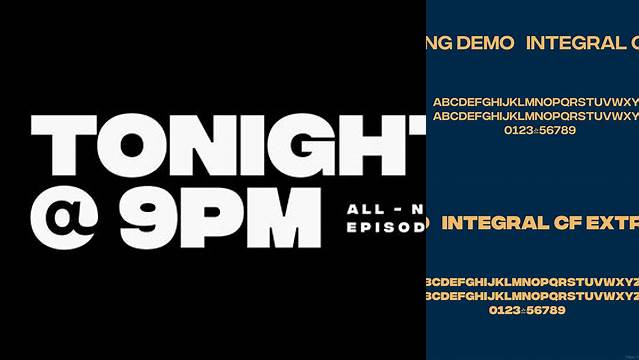
Integral CF Bold OTF Font: Fontspring Demo & Uses
Introduction to Integral CF Bold OTF
When it comes to typography, the Integral CF Bold OTF font stands out as a versatile and impactful choice for designers and creatives. This font, available for demo on Fontspring, offers a unique blend of modernity and classic appeal, making it suitable for a wide range of applications. Whether you're working on branding, web design, or print materials, understanding the characteristics and capabilities of Integral CF Bold OTF is crucial. Integral CF Bold OTF is not just another typeface; it's a carefully crafted tool that can significantly enhance the visual impact of your projects. So, guys, let's dive in and explore what makes this font so special and why you should consider using it in your next design endeavor. The bold variant, in particular, adds a certain robustness and presence that can capture attention and convey your message effectively. From its clean lines to its well-balanced letterforms, Integral CF Bold OTF exudes professionalism and sophistication. This makes it an excellent option for headings, titles, and any situation where you need to make a strong statement. Plus, the OTF (OpenType Font) format ensures compatibility across various platforms and software, giving you the flexibility you need in your workflow. One of the key strengths of Integral CF Bold OTF lies in its legibility. Despite its bold weight, the font maintains clarity and readability, even at smaller sizes. This is essential for ensuring that your message is easily understood by your audience. Think about it – a beautifully designed font is useless if no one can read it! So, when you're choosing a typeface for your project, remember that legibility should always be a top priority. And with Integral CF Bold OTF, you can rest assured that your text will be both visually appealing and easily readable. But it's not just about legibility; it's also about personality. Integral CF Bold OTF has a distinct character that sets it apart from other fonts in its class. Its slightly rounded edges and subtle details give it a friendly and approachable feel, while its bold weight adds a touch of authority. This combination of traits makes it a versatile choice for a wide range of projects, from corporate branding to creative advertising. Imagine using Integral CF Bold OTF for a website header, a poster headline, or even a logo – the possibilities are endless! It’s this versatility that makes it a valuable asset in any designer’s toolkit.
Key Features of Integral CF Bold OTF
Delving deeper into the key features of Integral CF Bold OTF, you'll discover why this font is a favorite among designers. First off, the bold weight itself is a standout. It provides a strong visual presence, making text pop and grab the viewer's attention. This is particularly useful for headlines, call-to-actions, and any element that needs to stand out. But it’s not just about being bold; it’s about being elegantly bold. The Integral CF Bold OTF strikes a perfect balance, ensuring that the boldness doesn’t compromise readability or aesthetic appeal. It’s this attention to detail that sets it apart. The OpenType (OTF) format is another crucial feature. OTF fonts offer enhanced typographic capabilities compared to older formats like TrueType. This includes things like ligatures, alternate characters, and different numeral styles. For Integral CF Bold OTF, this means you have access to a wider range of glyphs and stylistic options, allowing for greater creative expression. You can fine-tune the appearance of your text to achieve the exact look and feel you desire. Think of it as having a palette of typographic tools at your fingertips. Integral CF Bold OTF also boasts excellent legibility. As we mentioned earlier, this is paramount for any font, especially one intended for widespread use. The letterforms are designed with clarity in mind, ensuring that text remains readable even at smaller sizes or from a distance. This makes it a great choice for both print and digital applications. Whether you're designing a business card or a website, you can be confident that your text will be easily readable. Another noteworthy feature is the font's versatility. Integral CF Bold OTF is not limited to a specific type of project or industry. Its clean and modern design makes it suitable for a variety of applications, from corporate branding and advertising to editorial design and web interfaces. This adaptability is a huge advantage, as it means you can use the font across different projects without feeling like it’s out of place. It’s like having a Swiss Army knife for typography – always reliable and ready for anything. Furthermore, Integral CF Bold OTF includes a comprehensive character set. This means it supports a wide range of languages and includes various symbols and punctuation marks. This is particularly important for projects that require multilingual support or have specific typographic needs. You won’t have to worry about missing characters or compatibility issues – Integral CF Bold OTF has you covered. And let's not forget the aesthetic qualities. The font's clean lines, balanced proportions, and subtle curves give it a contemporary yet timeless feel. It’s a font that looks both modern and professional, making it a great choice for projects that need to convey trustworthiness and expertise. The designers behind Integral CF Bold OTF have clearly put a lot of thought into its visual appeal, and it shows.
How to Use Integral CF Bold OTF in Your Designs
Now, let’s talk about how to use Integral CF Bold OTF effectively in your designs. This is where the rubber meets the road, guys! Knowing the features of a font is one thing, but knowing how to apply it in real-world scenarios is where the magic happens. First and foremost, consider the context of your project. Integral CF Bold OTF shines in situations where you need to make a strong visual statement. This makes it ideal for headlines, titles, and branding materials. Think about using it for your website headers, posters, or even your logo. The bold weight commands attention, ensuring that your message gets noticed. However, it's important to use it judiciously. Overusing a bold font can lead to visual fatigue and make your design feel cluttered. A good rule of thumb is to use it sparingly for emphasis, rather than for large blocks of text. Reserve it for key elements that you want to highlight. Another great way to use Integral CF Bold OTF is in combination with its lighter counterparts. Many font families include multiple weights, allowing you to create a hierarchy and visual contrast in your design. Pair the Bold version with the Regular or Light versions for body text to create a balanced and harmonious layout. This technique helps guide the reader's eye and makes your content more engaging. When it comes to color, Integral CF Bold OTF works well in a variety of palettes. Its clean lines and strong presence make it suitable for both light and dark backgrounds. However, keep in mind that bold fonts generally work best with high contrast. For example, using white text on a dark background or vice versa can create a striking visual impact. Experiment with different color combinations to find what works best for your project. In terms of size, Integral CF Bold OTF is highly scalable. It looks great at large sizes for headlines and posters, but it also maintains legibility at smaller sizes for body text and captions. This versatility makes it a practical choice for a wide range of applications. Just be sure to test the font at different sizes to ensure it remains readable in your specific context. Consider the overall tone and style of your design. Integral CF Bold OTF has a modern and professional feel, so it’s well-suited for projects that require a clean and contemporary aesthetic. It may not be the best choice for designs that need to evoke a more traditional or whimsical mood. Choose fonts that align with the overall message and brand identity you're trying to convey. Don't be afraid to experiment with different typographic techniques. Try adjusting the letter spacing (tracking) or line height (leading) to fine-tune the appearance of your text. These subtle adjustments can make a big difference in the overall look and feel of your design. You might even consider using Integral CF Bold OTF in conjunction with other fonts. While it’s important to maintain consistency, pairing different typefaces can add visual interest and personality to your design. Just be sure to choose fonts that complement each other and don’t clash. Ultimately, the key to using Integral CF Bold OTF effectively is to understand its strengths and limitations. Use it strategically to create visual impact, maintain legibility, and reinforce your message. With a little practice, you’ll be able to harness the power of this font and elevate your designs to the next level.
Alternatives to Integral CF Bold OTF
Okay, so while Integral CF Bold OTF is a fantastic font, it's always a good idea to explore alternatives. Maybe it doesn't quite fit the specific vibe you're going for, or perhaps you're just curious about other options out there. Whatever the reason, knowing some solid alternatives can broaden your typographic horizons and help you make the best choice for your project. One popular alternative to Integral CF Bold OTF is Montserrat. This sans-serif typeface has a clean, modern aesthetic that's similar to Integral CF, but with its own distinct personality. Montserrat is highly versatile and works well for a variety of applications, from web design to print materials. It's also available in multiple weights, giving you flexibility in your design. Another excellent option is Open Sans. This humanist sans-serif font is known for its readability and clean lines. It's a great choice for body text, but it also works well for headings and titles. Open Sans is a favorite among designers for its versatility and legibility, making it a reliable alternative to Integral CF Bold OTF. If you're looking for something with a bit more character, consider Roboto. This sans-serif typeface has a dual nature, combining geometric forms with friendly curves. Roboto is highly legible and works well in a variety of contexts. It's a popular choice for Android interfaces and Google products, so you've probably seen it in action already. For a slightly bolder and more impactful alternative, check out Lato. This sans-serif font has semi-rounded details that give it a warm and friendly feel, while its strong structure provides stability and seriousness. Lato is a versatile typeface that works well for both headings and body text, making it a strong contender as an alternative to Integral CF Bold OTF. Another noteworthy alternative is Nunito. This well-balanced sans-serif font has rounded terminals that give it a soft and approachable feel. Nunito is highly legible and works well for a variety of applications, particularly in web design. Its rounded shapes make it a friendly and inviting choice for user interfaces and branding materials. If you're after a more geometric sans-serif, consider Futura. This classic typeface has a clean and modern aesthetic that's timeless and versatile. Futura is known for its geometric shapes and strong visual presence, making it a great choice for headlines and titles. It's a bold and impactful alternative to Integral CF Bold OTF if you're looking for a similar level of emphasis. When evaluating font alternatives, it's important to consider the specific needs of your project. Think about the overall tone and style you're trying to achieve, as well as the intended audience and context. A font that works well for one project might not be the best choice for another, so it's always a good idea to explore different options and experiment with different combinations. Don't be afraid to mix and match fonts to create a unique and visually appealing design. The key is to choose typefaces that complement each other and work together harmoniously. And remember, the best font is the one that effectively communicates your message and resonates with your audience.
Conclusion: Is Integral CF Bold OTF Right for You?
So, guys, we've journeyed through the ins and outs of Integral CF Bold OTF, from its key features to how to use it effectively and even explored some alternatives. But now comes the big question: Is Integral CF Bold OTF right for you? Let’s break it down. Integral CF Bold OTF is a fantastic font with a lot to offer. Its bold weight makes it perfect for headlines, titles, and any situation where you need to make a strong visual statement. Its clean lines and modern aesthetic give it a professional and contemporary feel, making it suitable for a wide range of projects. If you're looking for a font that commands attention and conveys authority, Integral CF Bold OTF is definitely worth considering. However, like any font, it has its strengths and limitations. It's not necessarily the best choice for body text, as its bold weight can be a bit overwhelming for large blocks of text. It's also not the most versatile font in terms of style – it has a distinct modern vibe that may not fit every project. So, if you're working on a design that requires a more traditional or whimsical feel, you might want to explore other options. Think about the specific needs of your project. What's the overall tone and message you're trying to convey? Who is your target audience? What are the key elements you want to emphasize? Answering these questions will help you determine if Integral CF Bold OTF is the right fit. If you need a font that's legible, impactful, and modern, it could be an excellent choice. But if you need something more subtle or versatile, you might want to consider one of the alternatives we discussed. The Fontspring demo is your best friend in this decision-making process. It allows you to see the font in action, customize the preview text, and even download a trial version to use in your own designs. Take advantage of this opportunity to get a hands-on feel for the font and see how it performs in your specific context. Don't rush the decision. Choosing the right font is a crucial part of the design process, and it can have a significant impact on the overall look and feel of your project. Take your time, explore different options, and experiment with different combinations. Trust your instincts and choose the font that resonates with you and best communicates your message. Ultimately, the best font is the one that helps you achieve your design goals and create a visually appealing and effective final product. So, is Integral CF Bold OTF right for you? Only you can answer that question. But with the information and insights we've shared, you're well-equipped to make an informed decision and choose the perfect typeface for your next design endeavor. Happy designing, guys!